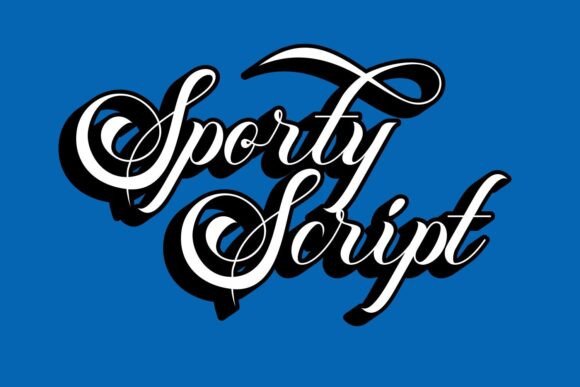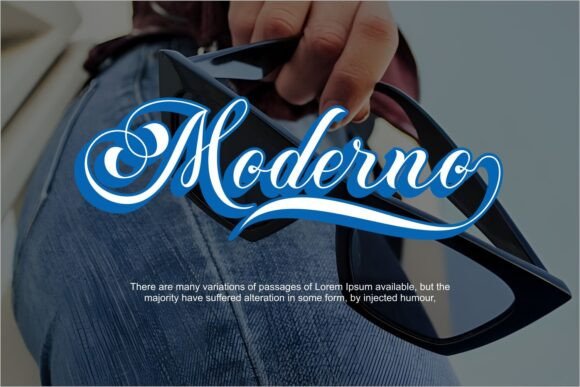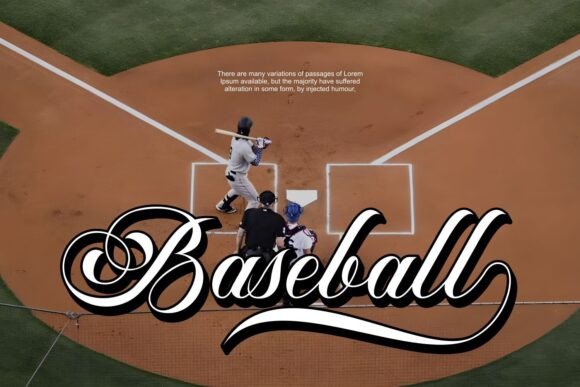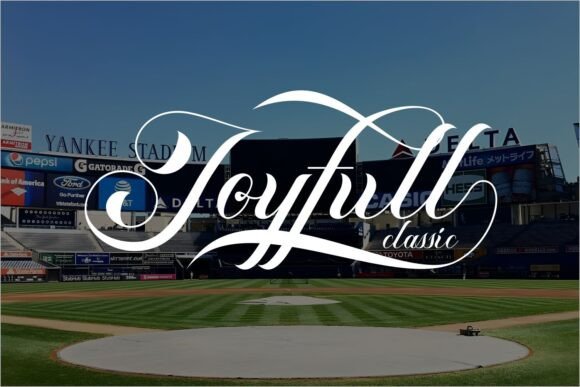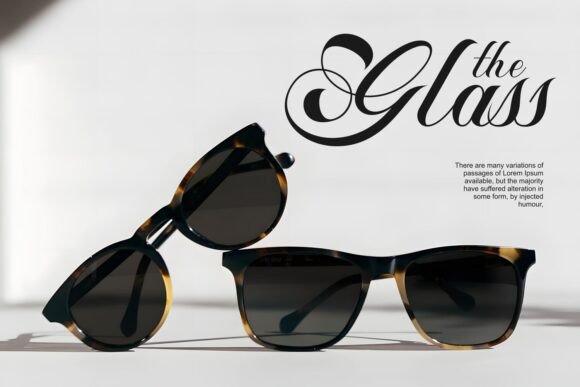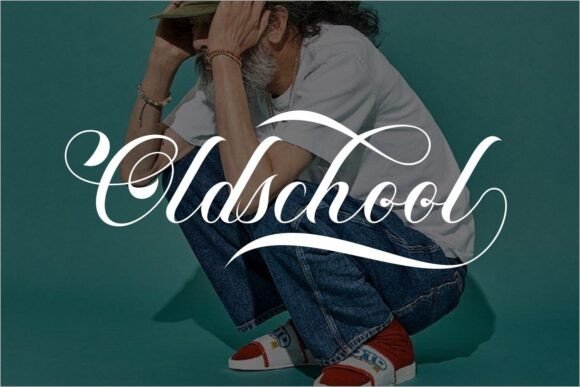
Athletic Font: Elevate Your Designs with Elegance and Style
Athletic is a stunning script font that exudes elegance and sophistication. Its stylish and refined appearance makes it perfect for a wide range of design applications, from wedding invitations and thank you cards to quotes, greeting cards, logos, and business cards. If you’re looking to add a touch of handmade charm to your designs, Athletic font is an excellent choice.
What Makes Athletic Font Special?
Athletic font boasts a unique blend of classic and modern elements, making it a versatile and eye-catching addition to any design. Its script style is characterized by flowing connections and delicate strokes, giving it a personal and intimate feel. The font’s elegance and refinement make it suitable for designs that require a high level of sophistication, such as luxury branding, high-end weddings, and special occasions.
Athletic font is a popular choice for wedding designers and event planners, and for good reason. Its romantic and whimsical feel makes it perfect for wedding invitations, save-the-date cards, and other stationery. The font’s elegant appearance also makes it suitable for event branding, including logos, menus, and programs. Whether you’re designing for a luxurious wedding or a more casual gathering, Athletic font is sure to impress.
Ideal for Crafters and Designers
Crafters and designers will love Athletic font for its versatility and ease of use. The font can be used for a wide range of projects, from paper crafting and scrapbooking to digital design and branding. Its compatibility with various design software and applications makes it easy to incorporate into your workflow. Plus, the font’s high-quality design ensures that it will look great in any size or format.
Key Features of Athletic Font
- Stylish and elegant script font: Athletic font features a beautiful, flowing script style that’s perfect for designs that require a touch of sophistication.
- Handwritten touch: The font’s handmade feel gives it a personal and intimate appearance that’s perfect for wedding invitations, thank you cards, and other stationery.
- High-quality design: The font’s high-quality design ensures that it will look great in any size or format.
Tips for Using Athletic Font
To get the most out of Athletic font, here are a few tips to keep in mind:
- Use it sparingly: Athletic font is a statement font, so use it sparingly to add emphasis and elegance to your designs.
- Pair it with contrasting fonts: Pair Athletic font with contrasting fonts to create visual interest and hierarchy in your designs.
- Experiment with colors and textures: Athletic font looks great in a variety of colors and textures, so don’t be afraid to experiment and find the perfect combination for your design.
Athletic font is a stunning script font that offers a unique blend of elegance and style. Its versatility, compatibility, and high-quality design make it perfect for a wide range of design applications, from wedding invitations and event branding to paper crafting and digital design. Whether you’re a designer, crafter, or DIY enthusiast, Athletic font is sure to elevate your designs and add a touch of handmade charm.